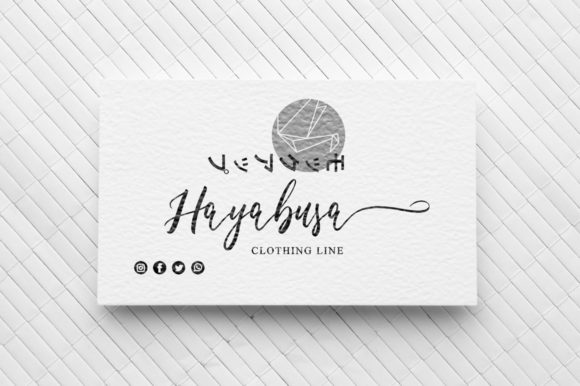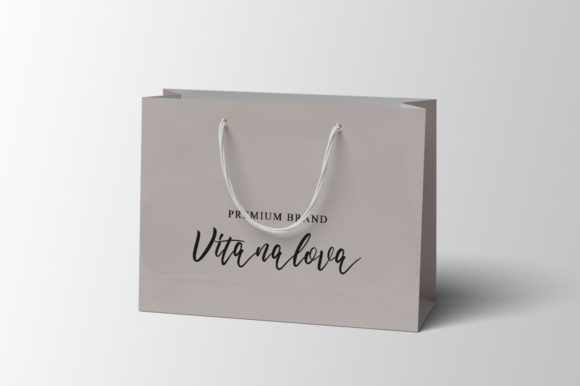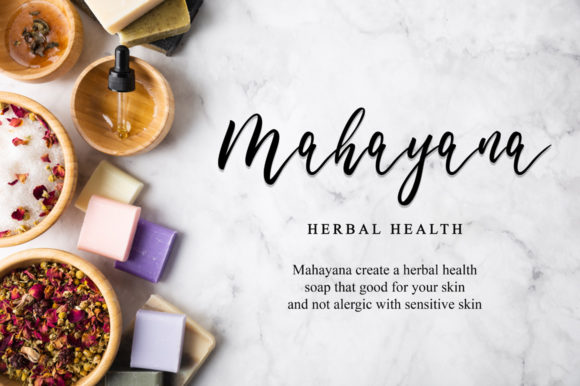
Introduction to Madona Script Font
Madona Script is a magical script font carefully created with a touch of elegance.
Whether youโre looking for fonts for Instagram or calligraphy scripts for DIY projects, this font will turn any creative idea into a true piece of art Madona Script is PUA encoded which means you can access all of the glyphs and swashes with ease.
Madona Script Font offers exceptional quality and versatility, making it a valuable addition to your design toolkit. Whether you’re creating for personal projects or commercial use, Madona Script Font delivers professional results.